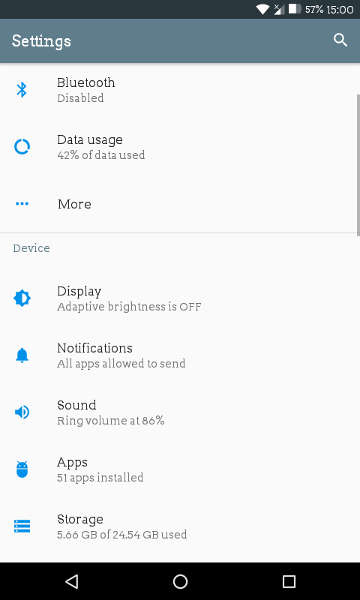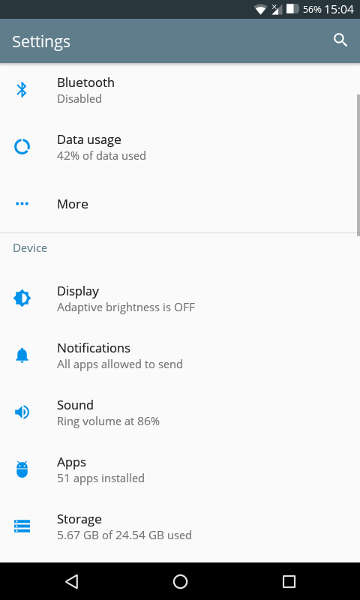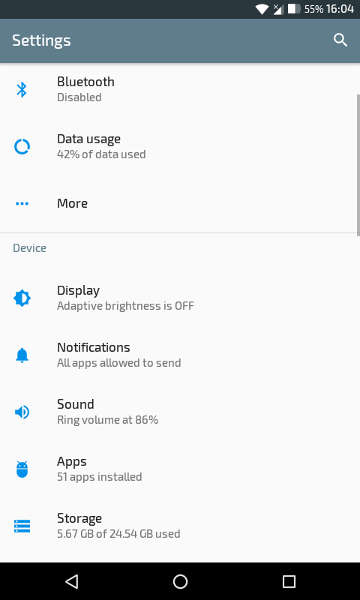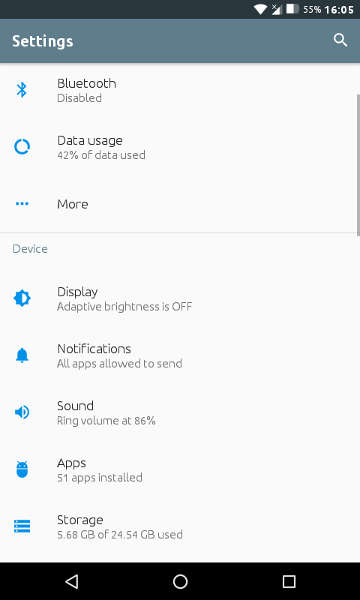
If you are into Android theming, most probably you have changed your device’s default fonts at least once. Fonts represent a very important part of user interfaces and Android manufacturers usually ship their devices with some sort of support for changing typeface or font weight and size. Here’re a few tips to help you choose the best font for Android devices.
How to Choose the Best Font for Your Android Device
But what exactly are font and typeface?
Both terms trace their roots back to the days of letterpress typography. In letterpress typography, each character is represented on a metal block, which is rolled into ink and then pressed down onto a piece of paper. Putting several metal blocks together will form words and sentences. A group of metal blocks with characters designed with the same design principles forms a typeface.
A font is a subset of a typeface which includes characters with the same weight and size. So, ‘Times New Roman’ is a typeface and ‘Times New Roman 10 pt. Bold’ is a font. However, as technology advanced and typography became computerized, these terms turned out less important. It is possible today for both terms to be used interchangeably, and that is completely fine as long as they are used outside of professional designer circles.
In the early days of computing, most commonly used typefaces were ‘Times New Roman’ and ‘Arial’. When the World Wide Web started to grow, several new typefaces became available to cover the needs of web designers. Nowadays, there are thousands of different free typefaces to choose from. They are usually hosted on specialized websites like Google Fonts.
Serif vs Sans-Serif
Serif and Sans-Serif are typeface categories. A serif is a small line attached to the end of a stroke in a character. Serif typefaces can be dated back to the Latin Alphabet. An example of a Serif typeface is the following:
Sans-Serif typefaces do not feature a serif on characters (sans = without in French). Sans-Serif typefaces also have a great history. They were common in casual and non-monumental epigraphies from Ancient Greece. They are designed with simplicity and minimalism in mind. An example of a Sans-Serif typeface is the following:
While there are other typeface categories also available, we will not discuss them in this article, because they are not generally designed with computer displays in mind.
Should I go with Sans-Serif or with Serif on Android?
There is a great debate about which typeface category is best for readability or legibility. Scientific research has failed to shed some light on this question. Many professionals argue that serifs help make similar characters (like the letter ‘I’ and letter ‘l’) more distinguishable. However, there are Sans-Serif typefaces available which deal well with this scenario.
Nowadays, Serif typefaces are used on printed documents like newspapers and books, while Sans-Serif typefaces are used on computer user interfaces. This is because serifs typically require high display resolutions to render correctly. Serif typefaces are increasingly appearing on websites today, as higher screen resolutions allow that.
Google has chosen to use Sans-Serif typefaces on Android. Both ‘Droid Sans’ (before Android 4.x) and ‘Roboto’ are Sans-Serif typefaces. They, in fact, perfectly fit in Android’s user interface. Generally, Android devices with high display resolutions and high dpi would be able to render Serif fonts correctly. On devices with smaller screens and lower display resolutions, Serif letters might appear malformed. You can try some Serif typefaces from the list below and find out if your device can render them correctly.
Some of the Best Available Serif/Sans-Serif Typefaces
Following is a list of some typefaces that we consider the best in their category, based on criteria like design principles and looks. Under each typeface in the list, we provide an image showing the character series ‘O0xIll’ written in that particular typeface. That is the capital letter ‘O’, followed by number 0, letter ‘x’ and word ‘ill’ with a capital ‘i’. This tests how the typeface deals with some of the principal examples of similar-character situations.
Serif
- Merriweather
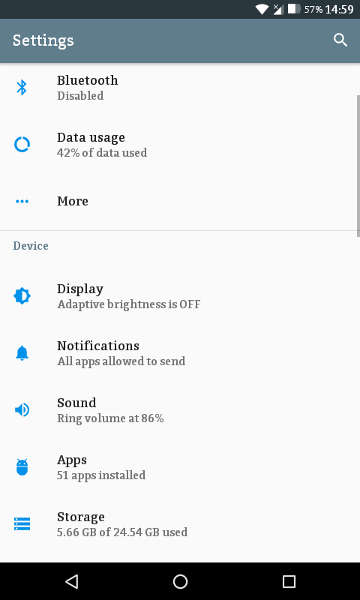
This typeface was designed to be pleasant to read on screens. It features large x-height (the height of the lower-case letter ‘x’, used as a measurement of typeface size) and slightly condensed letterforms (condensed typefaces feature smaller horizontal space between characters). Its sources are available on Github and it is designed by Sorkin Type, a type design foundry based in the USA. Google Fonts service reports that Merriweather appears in more than 2.5 million websites worldwide.
- Bitter
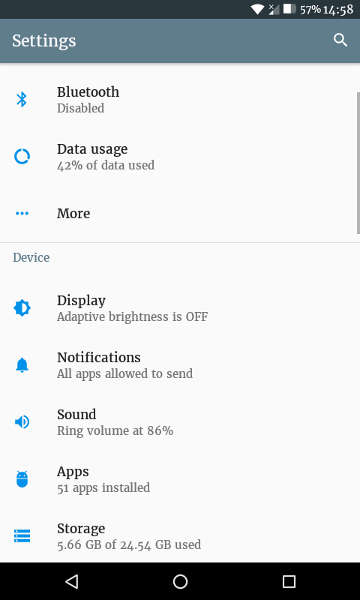
Bitter typeface features large x-height and thick letterforms, creating an intense color in long text areas. It was designed specifically for use on screens. Its creator is Huerta Tipográfica, a collaborative Argentinian type foundry with award-winning work.
How to Change the Fonts of your Android
- If your device supports CyanogenMod’s CMTE engine or the Substratum Theme Engine, you can easily change fonts using TypeFace App. This App will make all fonts hosted on Google Web Fonts available for installing on your Android device.